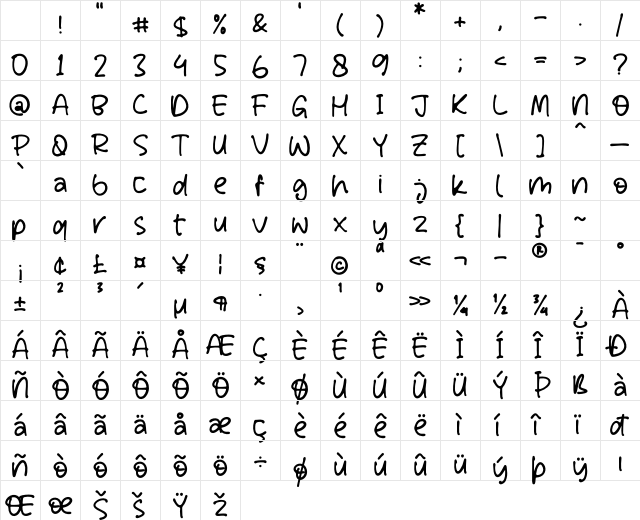
Wondering Notes is a composed and adaptable typeface that performs quietly and consistently across a wide range of design contexts.
Pro Tip: Use Wondering Notes in both headline and body roles to test its range before committing to a single application.